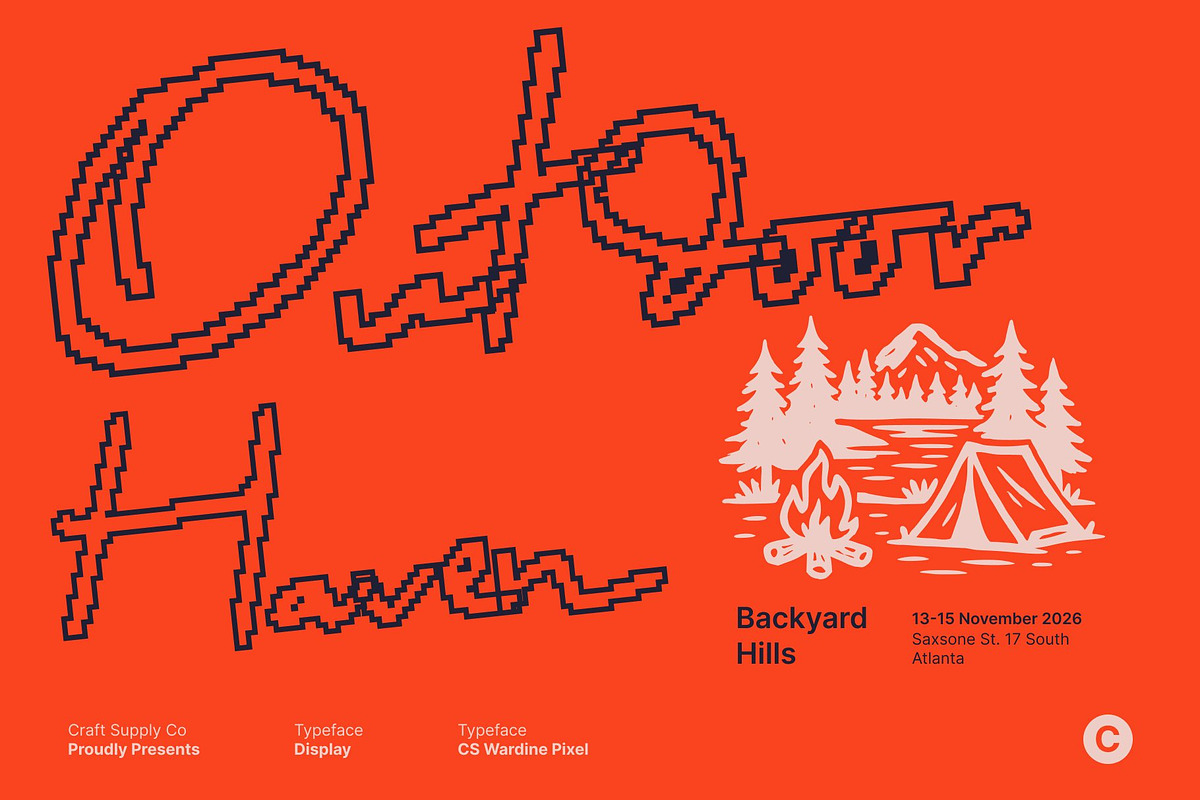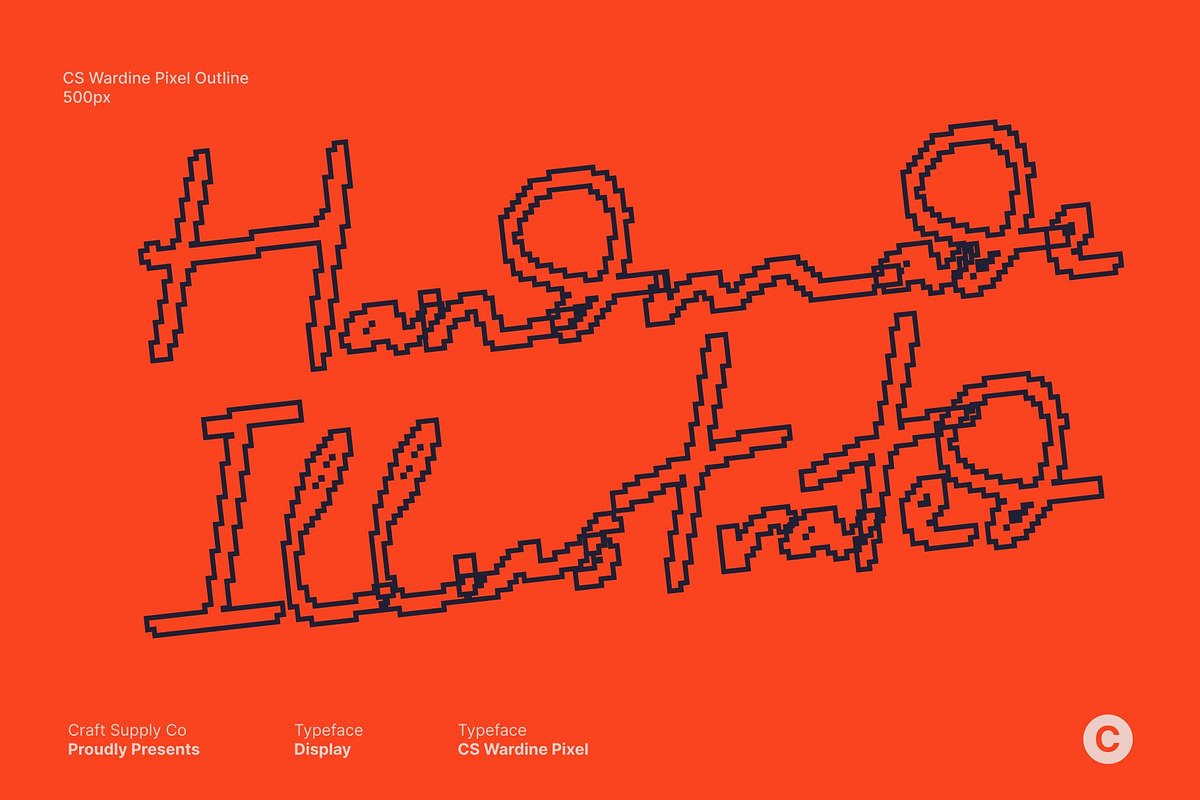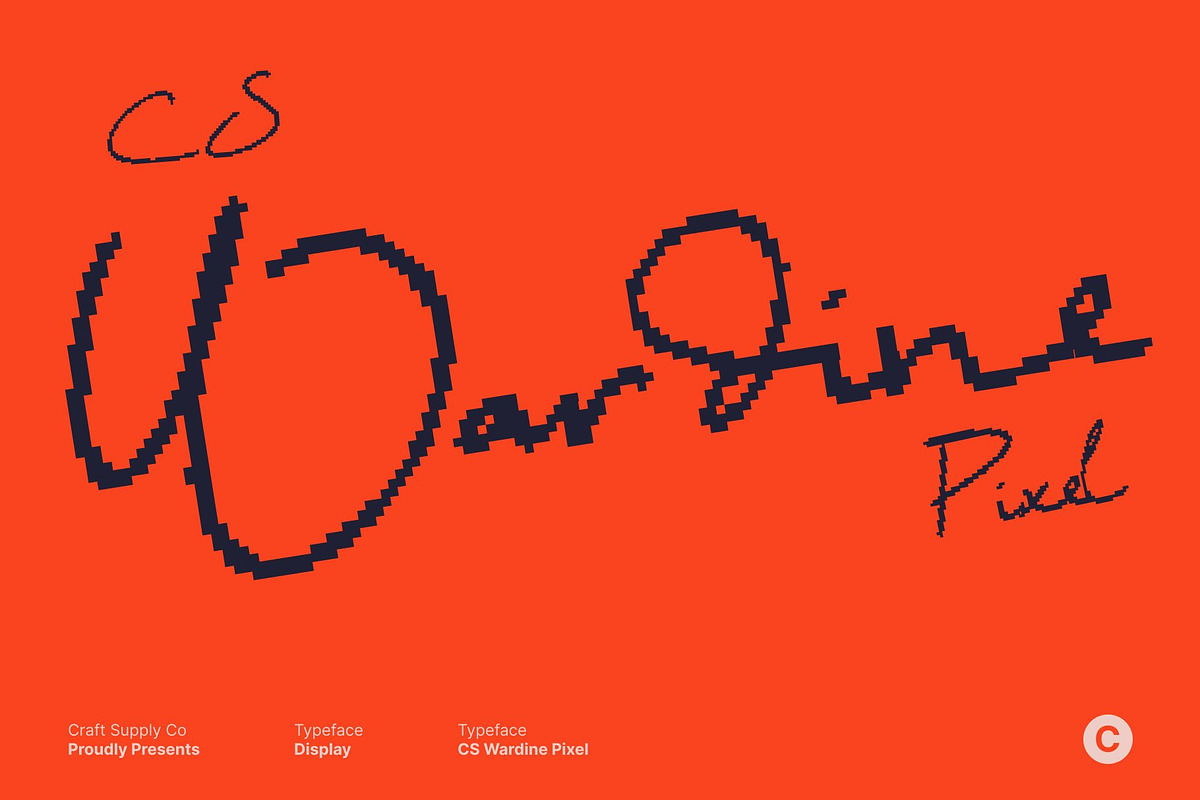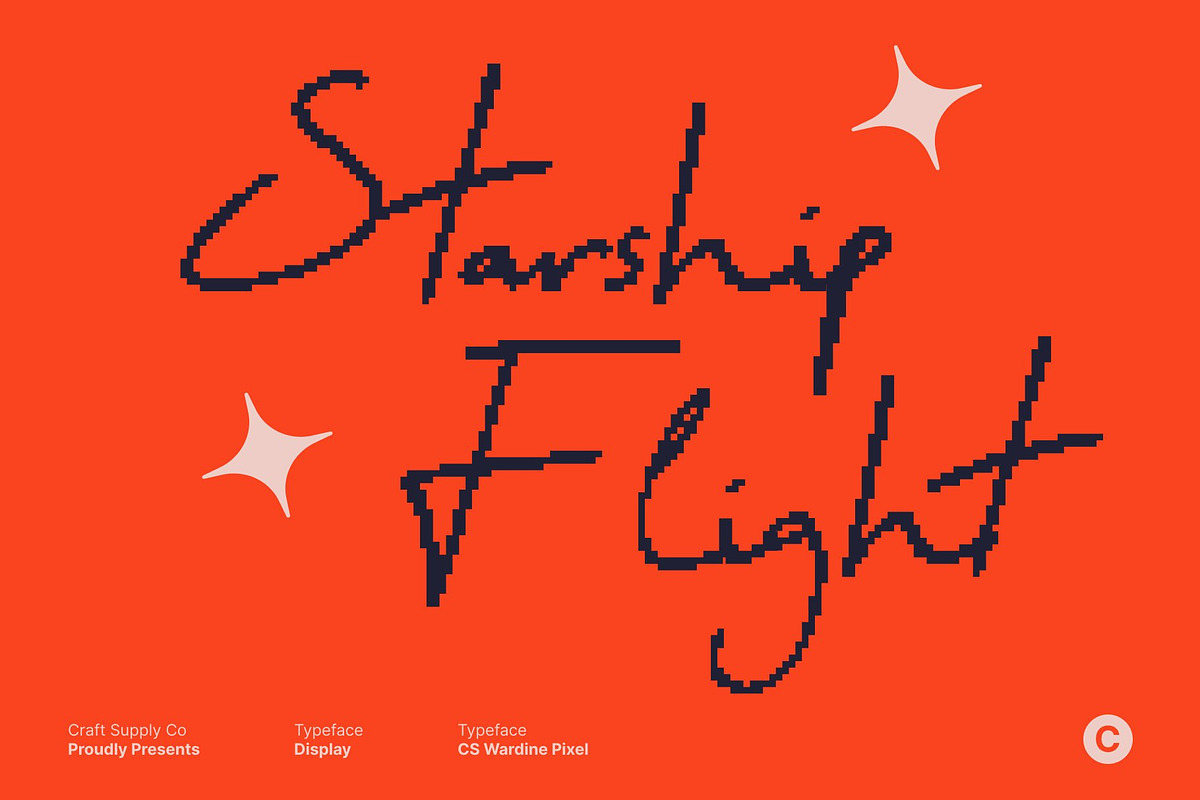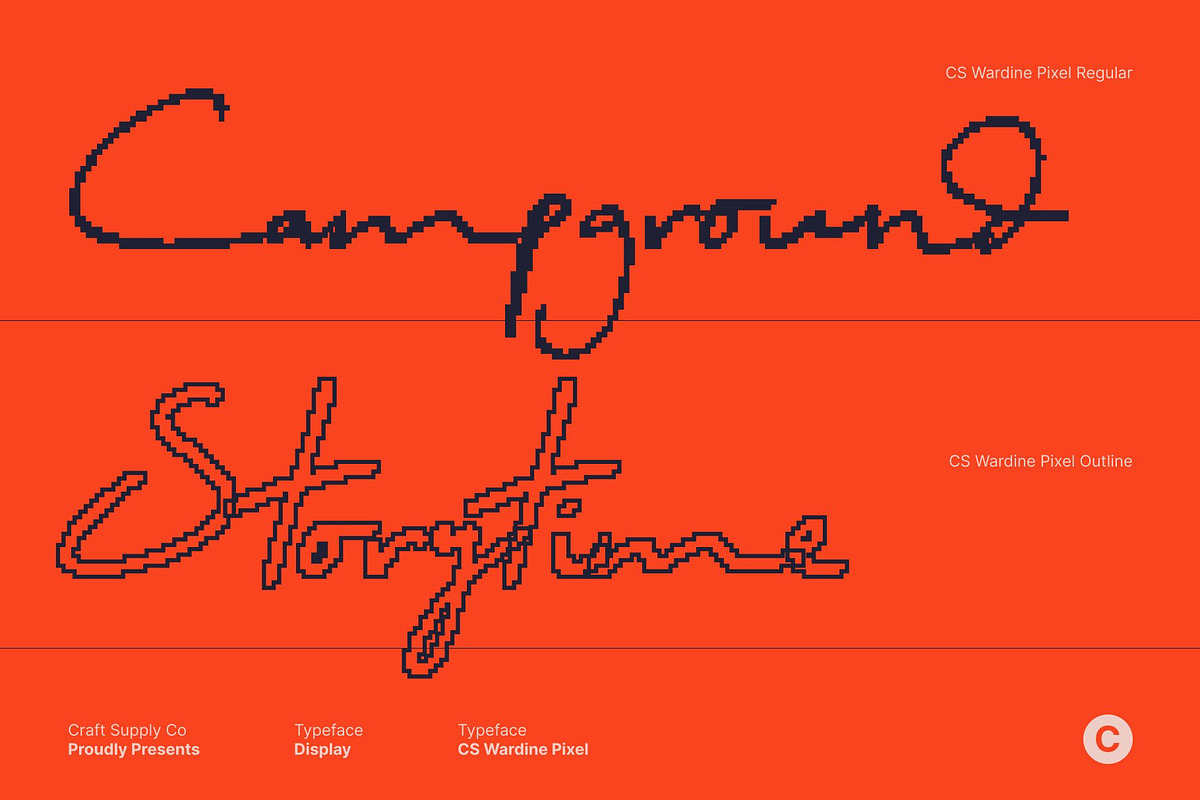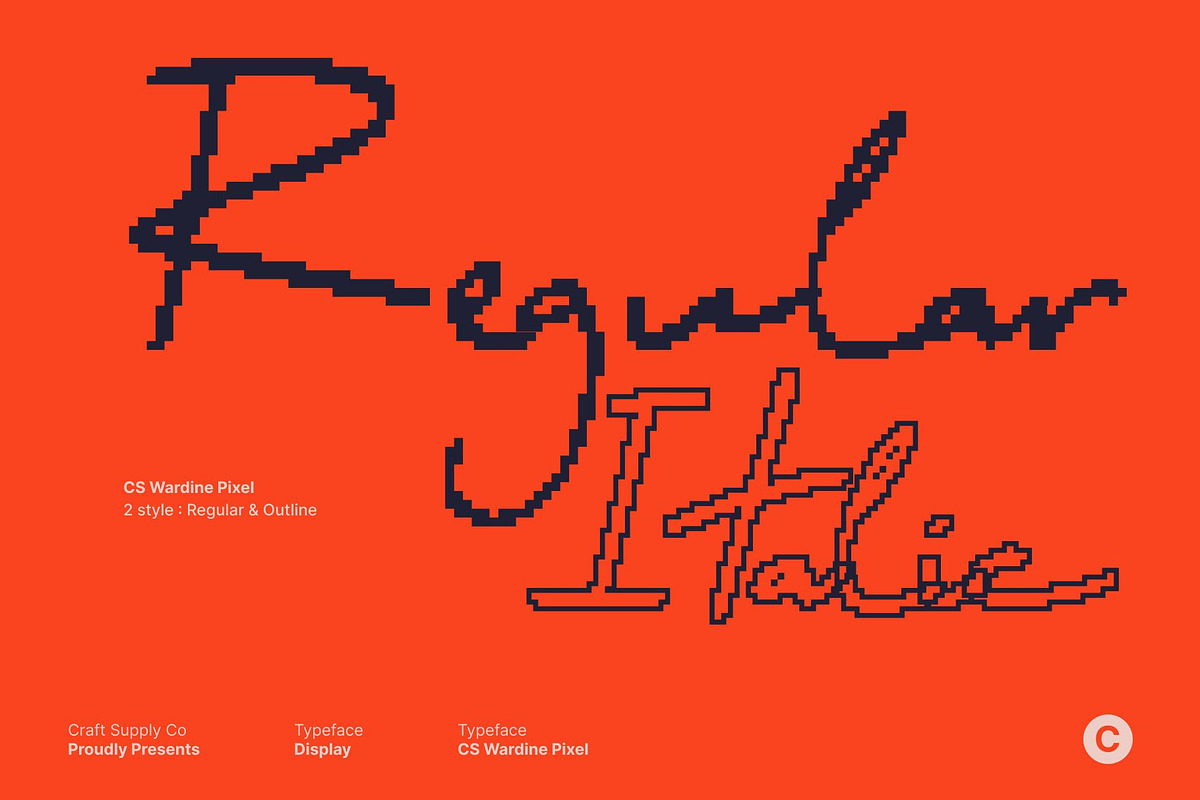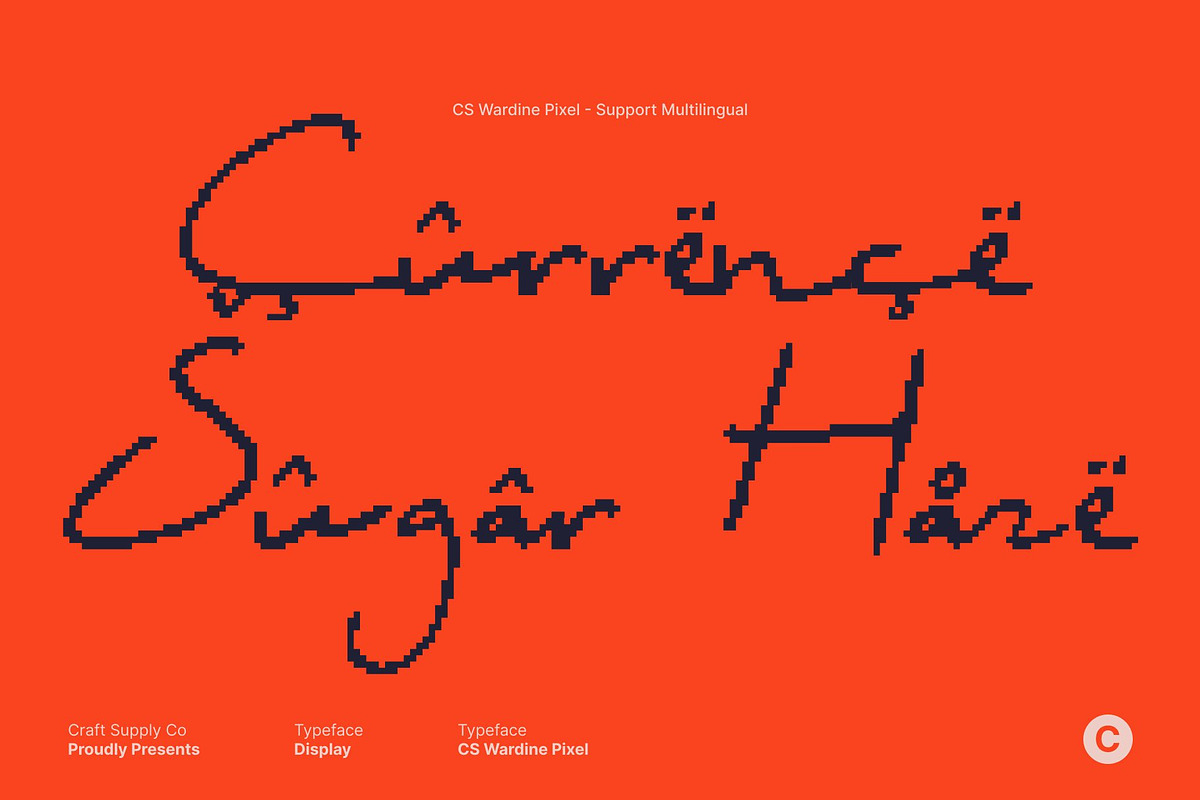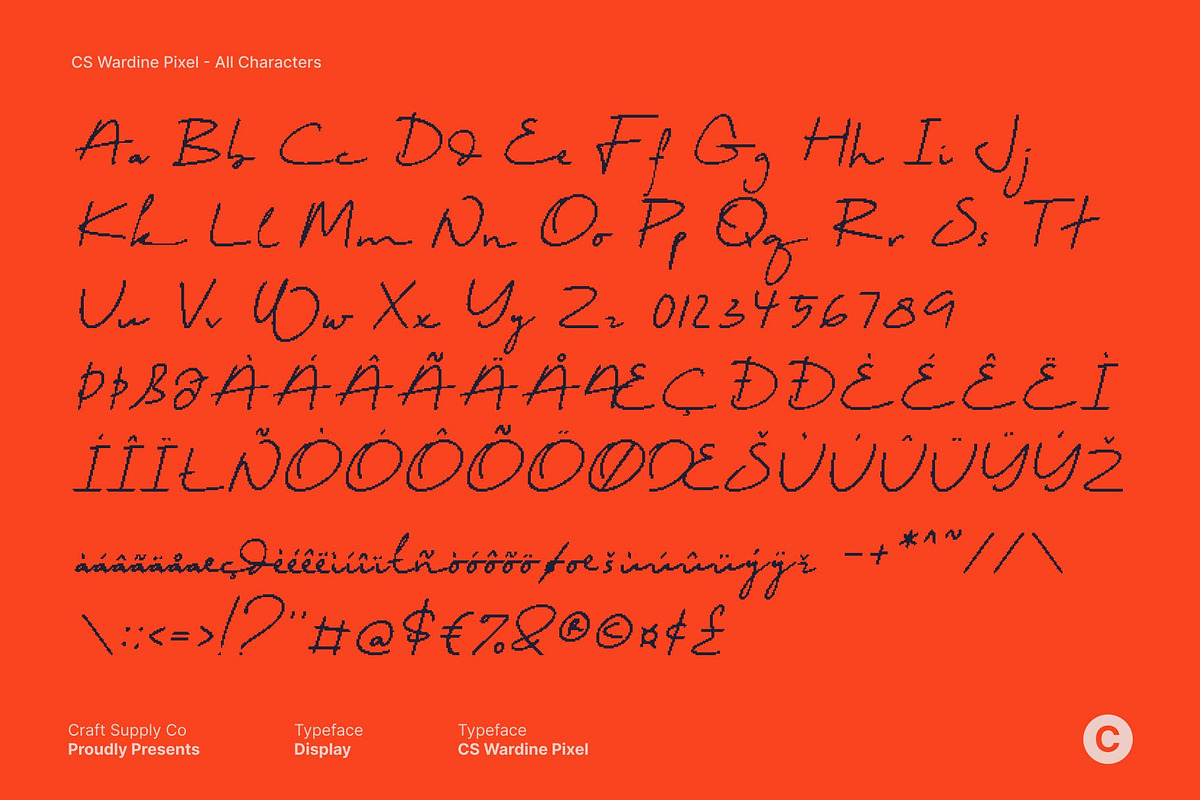
CS Wardine Pixel
CS Wardine Pixel – Soft Handwritten Beauty with Casual Charm
Expressive Handwritten Script with Pixel Accent This is a soft and beautiful handwritten script font that captures the natural warmth of real pen strokes, enhanced with subtle pixel-inspired detailing. Designed to feel expressive yet effortless, it blends organic handwriting flow with a gentle digital character. The result is a script that feels personal, inviting, and uniquely modern.
Natural Strokes with Subtle Digital Texture The letterforms feature smooth curves, organic connections, and delicate stroke variations that mirror authentic handwriting. Refined pixel nuances add a light textured touch, giving the font a distinctive identity without overpowering its softness. This balance between handcrafted elegance and digital structure ensures both personality and readability.
Warm, Casual, and Emotionally Engaging With its relaxed rhythm and expressive movement, this font communicates sincerity and comfort. It brings a human touch to designs, allowing text to feel heartfelt rather than mechanical. The soft flow combined with subtle pixel precision makes it suitable for designs that aim to feel warm yet contemporary.
Perfect for Personal Branding and Creative Projects Ideal for personal branding, inspirational quotes, invitations, lifestyle visuals, packaging, and social media graphics, this font enhances projects that value authenticity and emotional connection. This font delivers a charming handwritten presence enriched with modern pixel character, creating typography that feels both natural and distinctive.
- CS Wardine Pixel Regular
- CS Wardine Pixel Outline